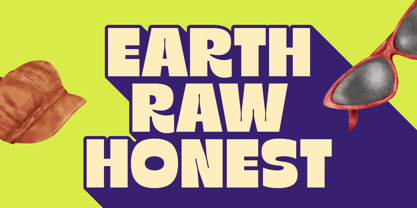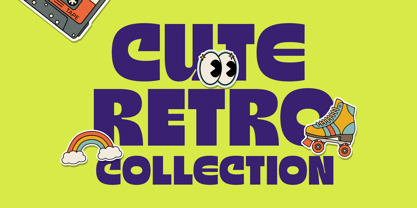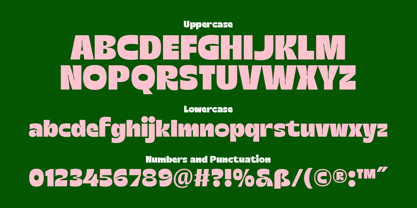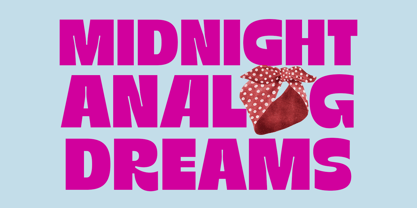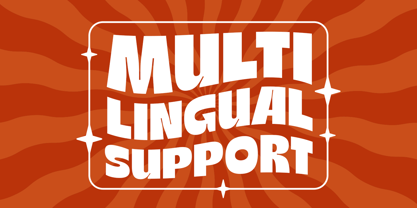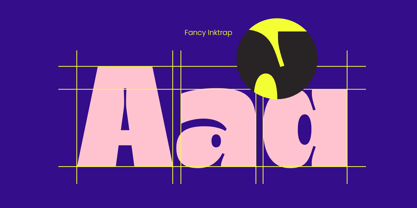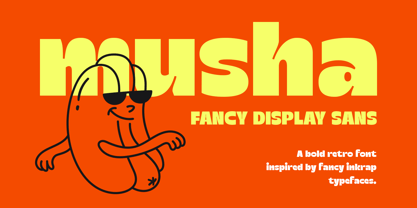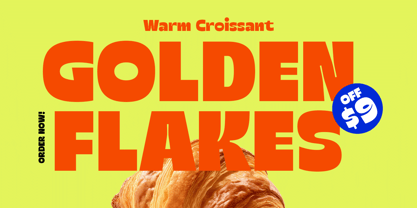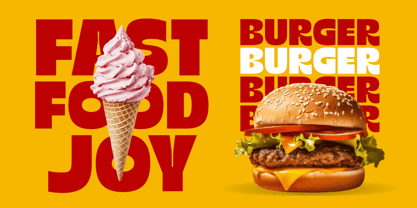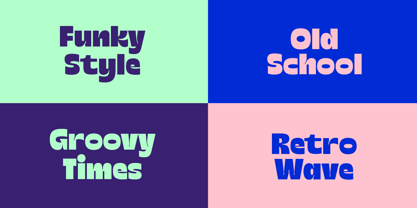
Musha
by Arterfak Project
The Musha Font Family was designed by Ahmad Ramzi Fahruddin and published by Arterfak Project. Musha contains 2 styles and family package options. More about this family
Musha is a bold, playful display sans inspired by vintage ink-trap typography, retro packaging, and groovy 70s–90s visual culture. Thick curves, juicy counters, and unexpected inner cuts give it a loud personality while keeping it clean and highly legible at large sizes. It’s the kind of typeface that doesn’t whisper — it announces. From funky coffee branding and citrus soda labels to trendy posters, motion graphics, and editorial headlines, Musha brings instant character to any layout that needs warmth, punch, and nostalgic flair. Musha comes packed with alternate characters to help you customize your typography and avoid repetition. Available in Regular and Shadow style! What You'll get : - Uppercase - Lowercase - Numbers & symbols - Punctuation - Stylistic alternates - Multilingual support
Designers: Ahmad Ramzi Fahruddin
Foundry: Arterfak Project